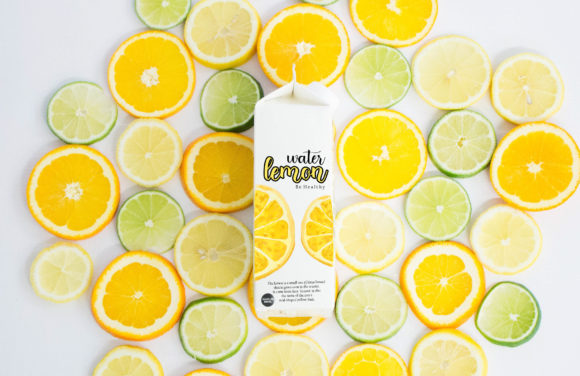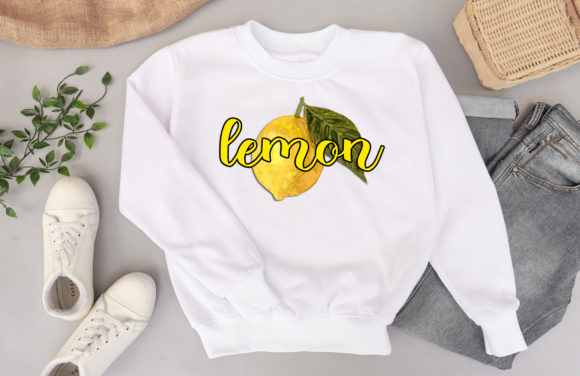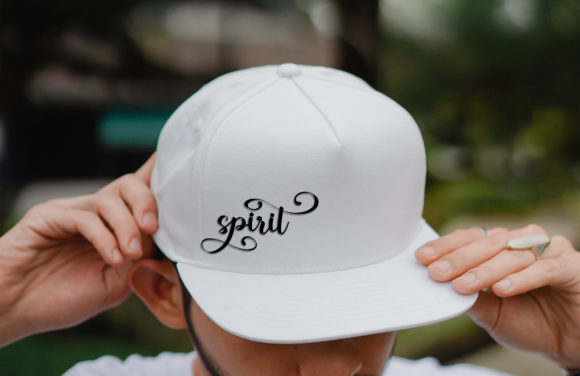
Lemonilo Font
About Lemonilo Font
Lemonilo is an elegant script font with a contemporary atmosphere and impeccable form, inspired by timeless classic calligraphy. Not too thin and not too thick, balanced and varied, this font was designed to enhance the beauty of your projects. Lemonilo is PUA encoded which means you can access all glyphs and swashes with ease!